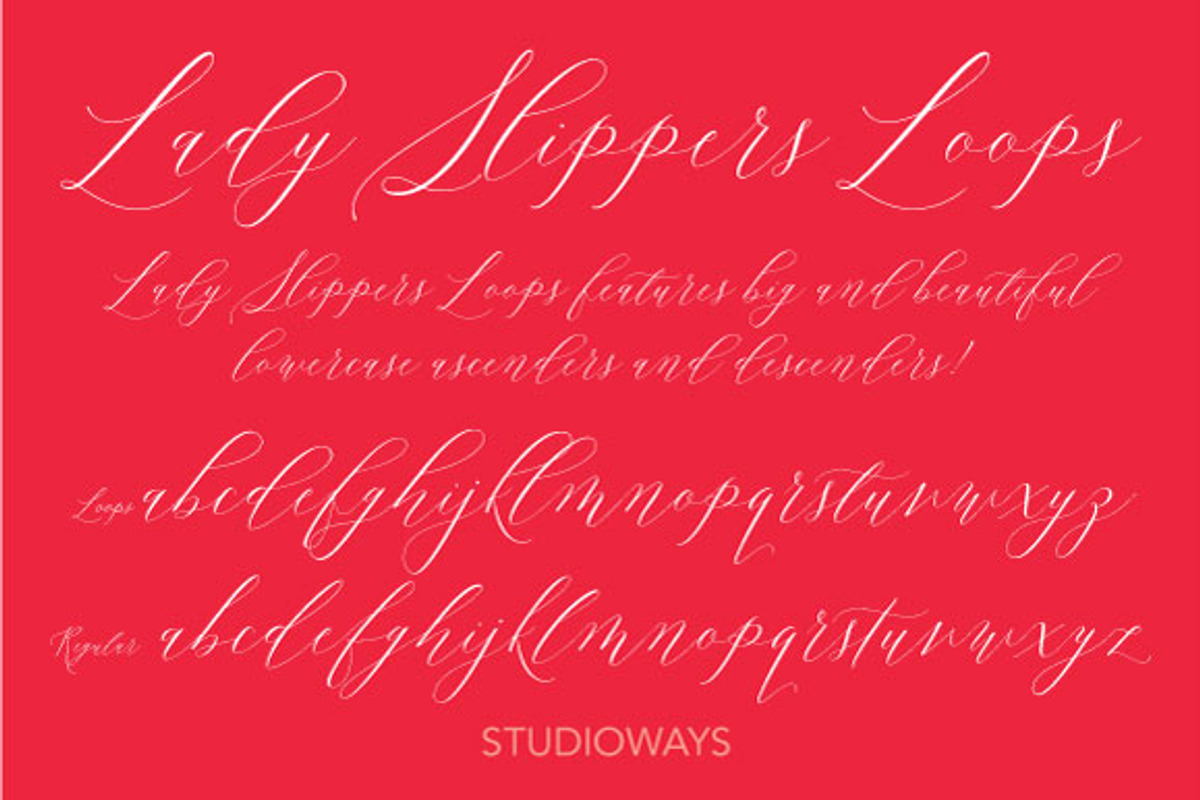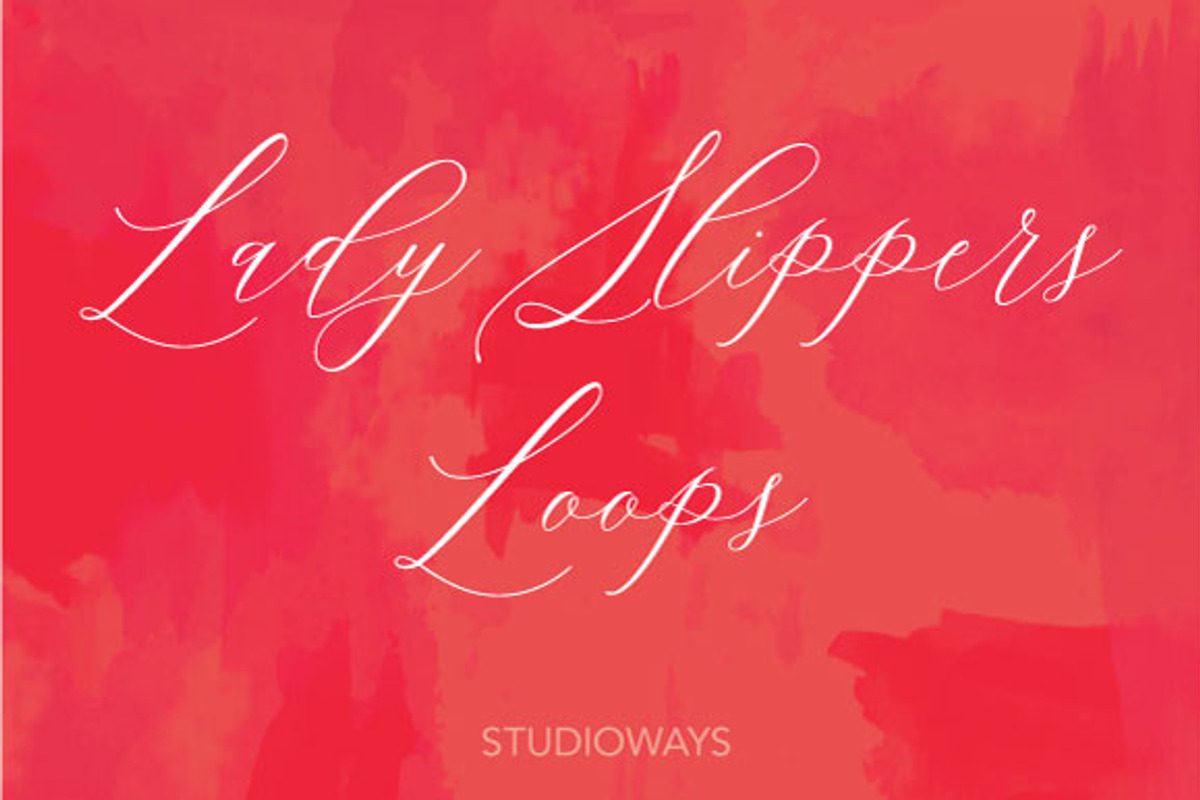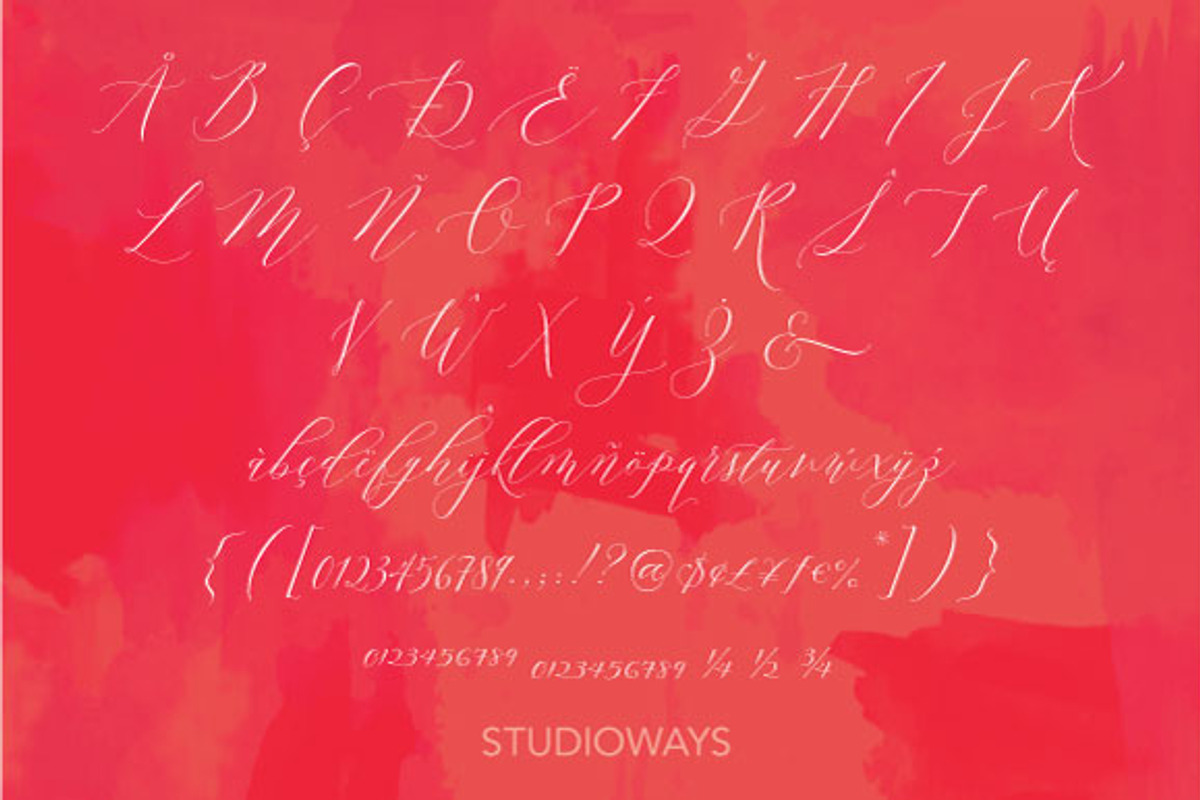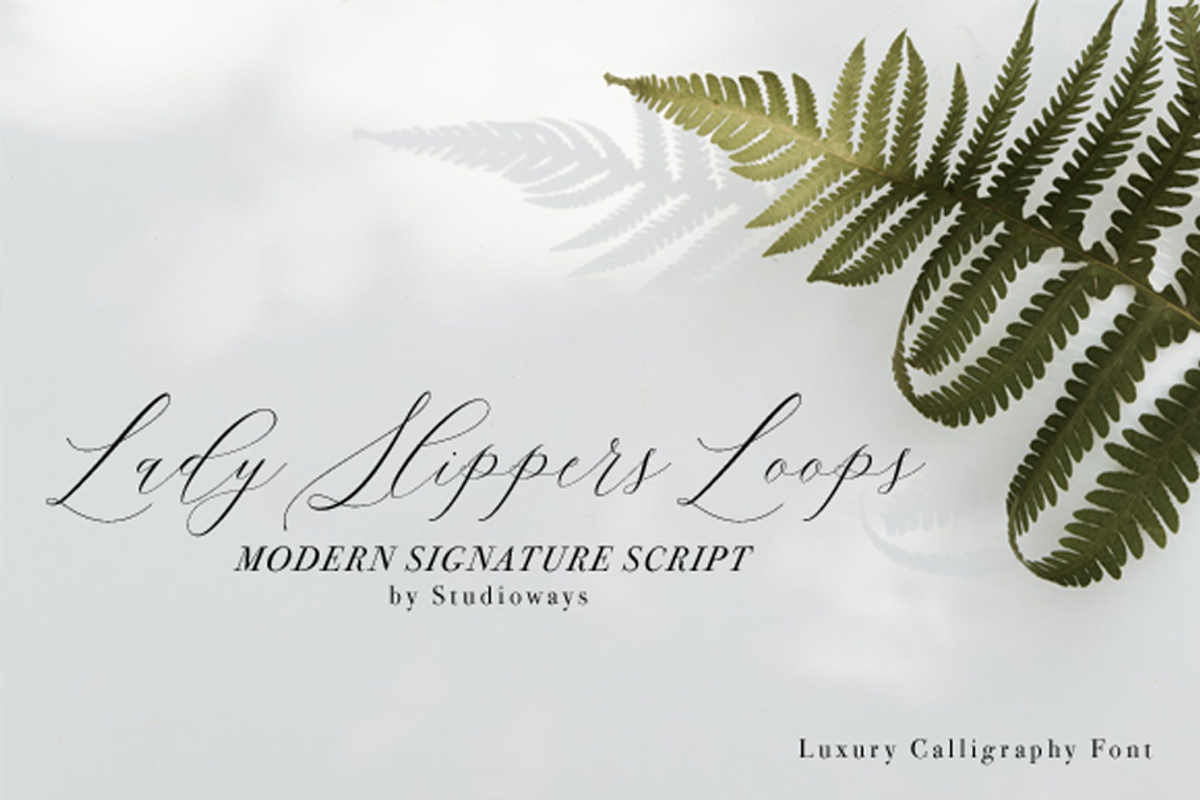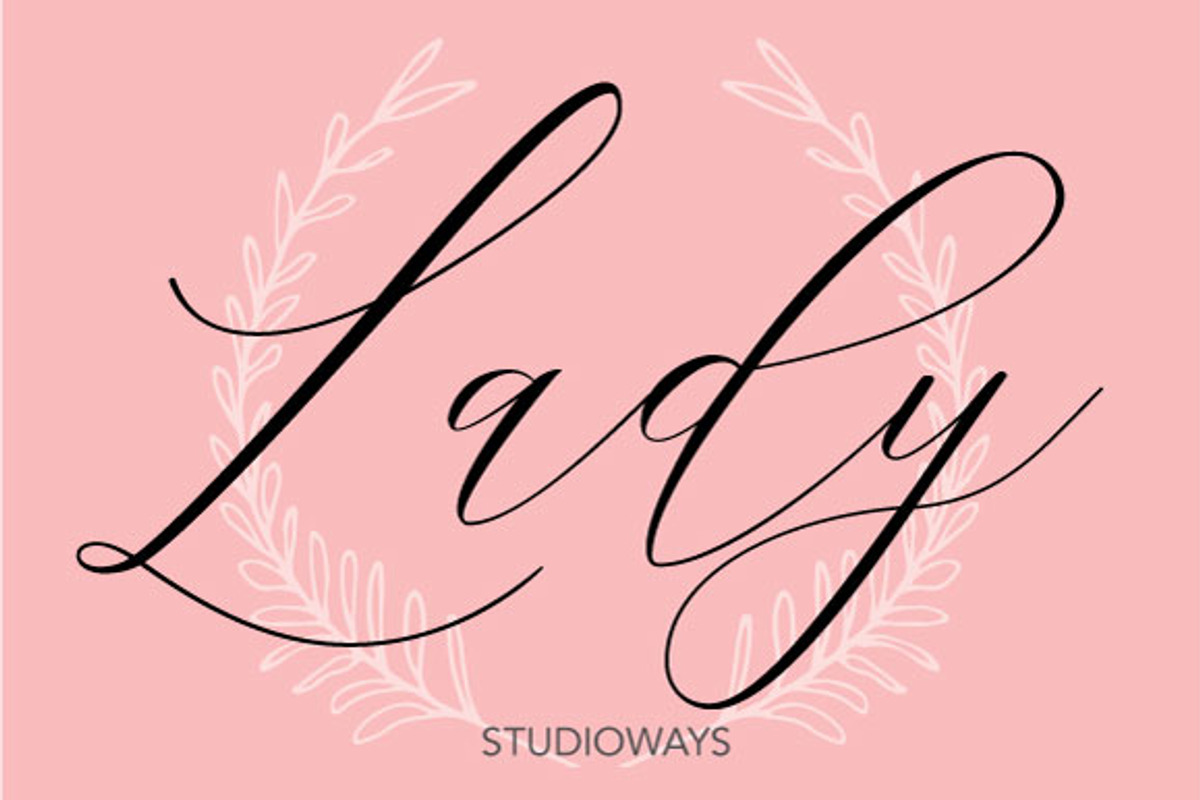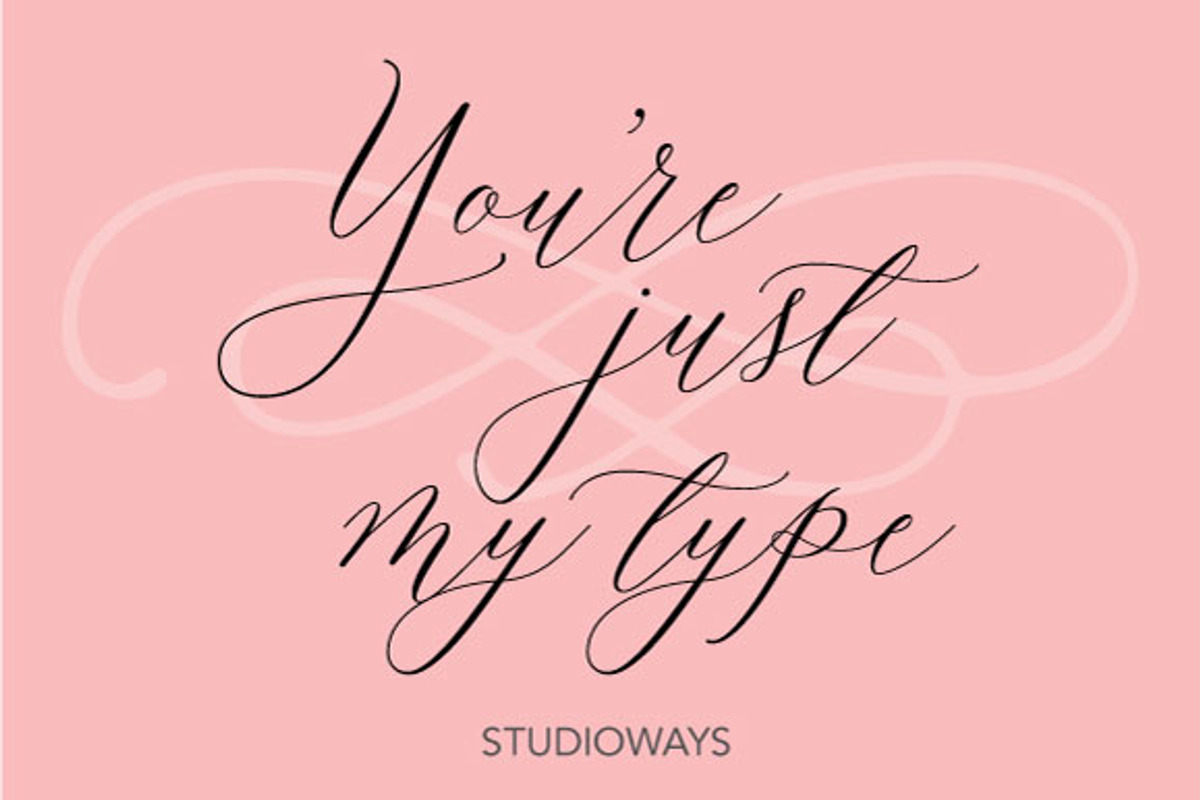
Lady Slippers Loops
Like Lady Slippers Basic, Lady Slippers Loops is a toned down version of Lady Slippers. Still a beautiful and delicate handwritten script typeface, now I've redrawn the asenders and descenders with gorgeous wide open loops. Like Basic, this version is meant for users who don't require all of OpenType goodies, but want the basic font with some added flair. Lady Slippers Loops does support some basic OT features, like fractions, superiors, and ordinals. And it still supports a long list of Latin-based languages including, Croatian, Czech, Danish, Dutch, English, Estonian, Finnish, French, German, Hungarian, Irish, Italian, Latvian, Lithuanian, Norwegian, Polish, Portuguese, Romanian, Serbian, Slovak, Slovenian, Spanish, Swedish, and Turkish